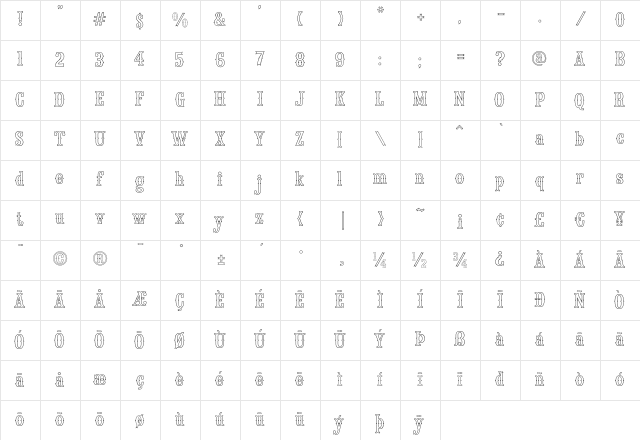
Saloon Girl Fill Lines Regular
Design Context for Saloon Girl Fill Lines Typeface
Saloon Girl Fill Lines echoes the hand-painted signage and woodblock typography of the American frontier, with a warm, rugged personality.
A natural fit for craft spirits, ranch branding, rodeo events, and Americana-inspired design work.
Font Pairing: Combine Saloon Girl Fill Lines with a simple slab or neutral sans — period-accurate companions reinforce the vintage feel without competing for attention.
Pro Tip: Use Saloon Girl Fill Lines for short, impactful bursts of text — it shines in poster headlines and product names rather than extended copy.